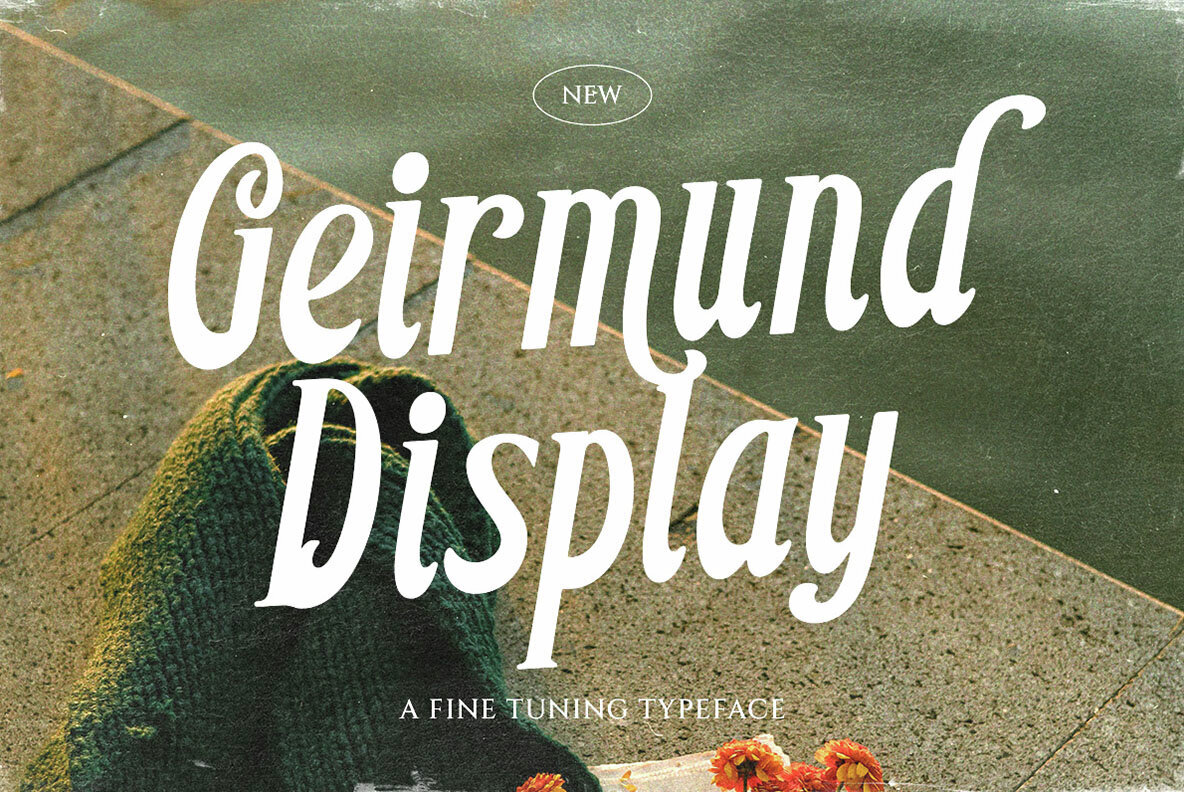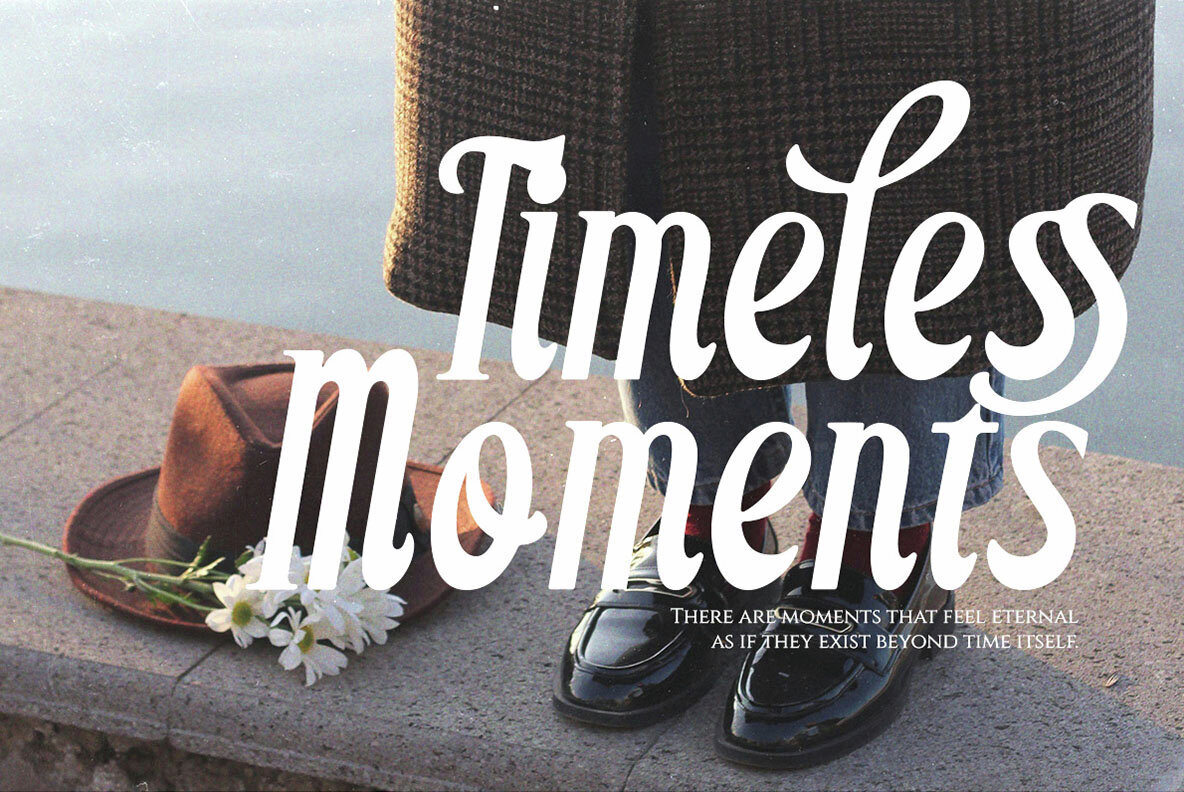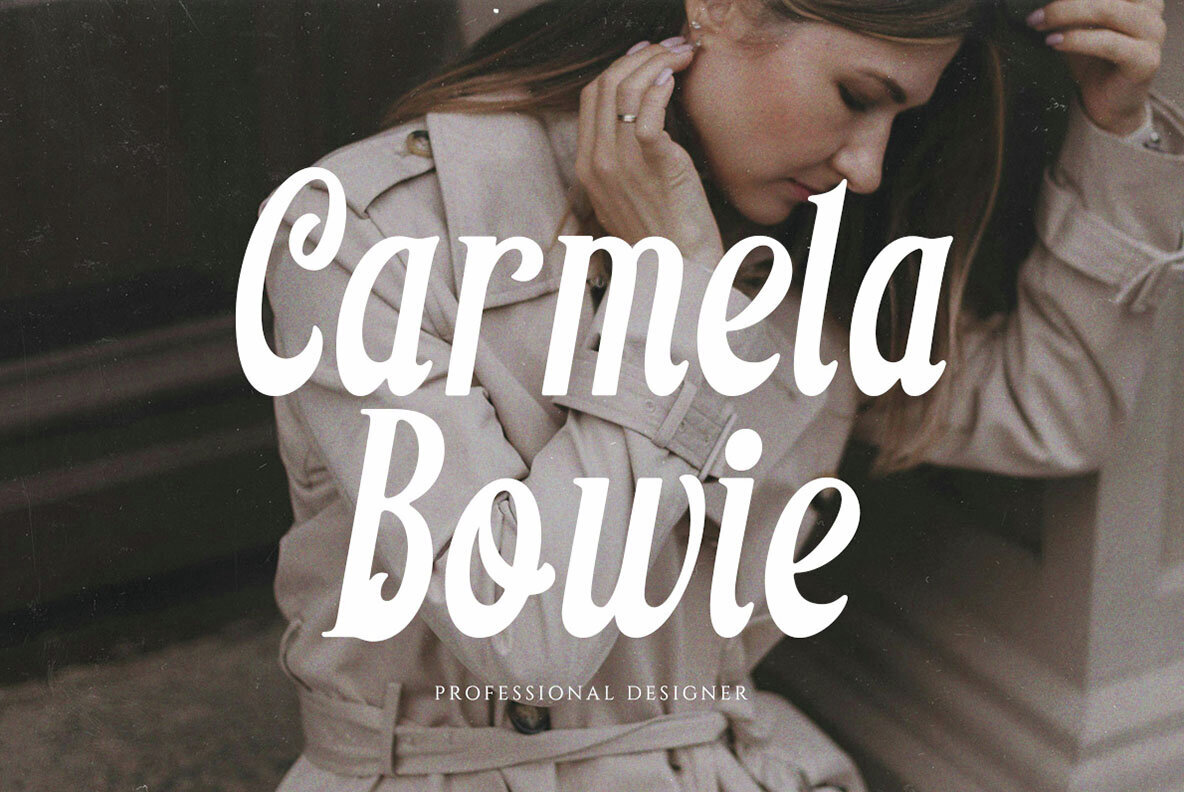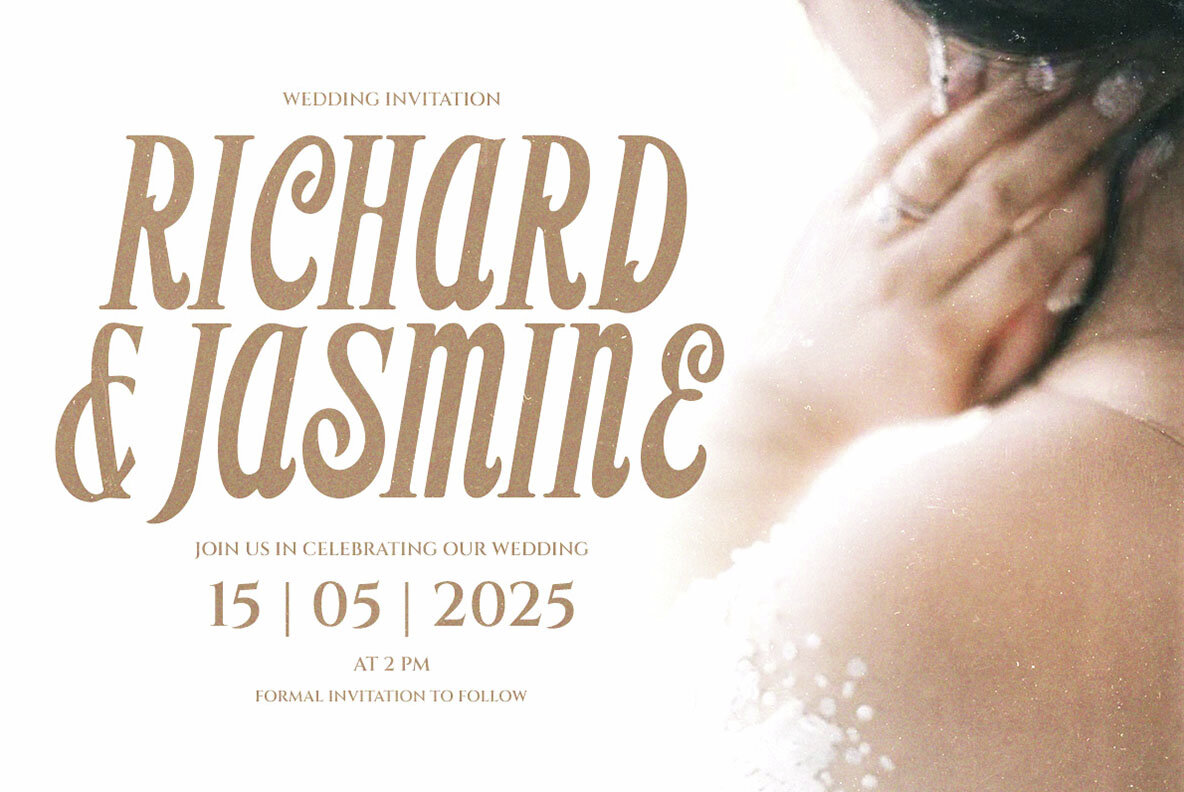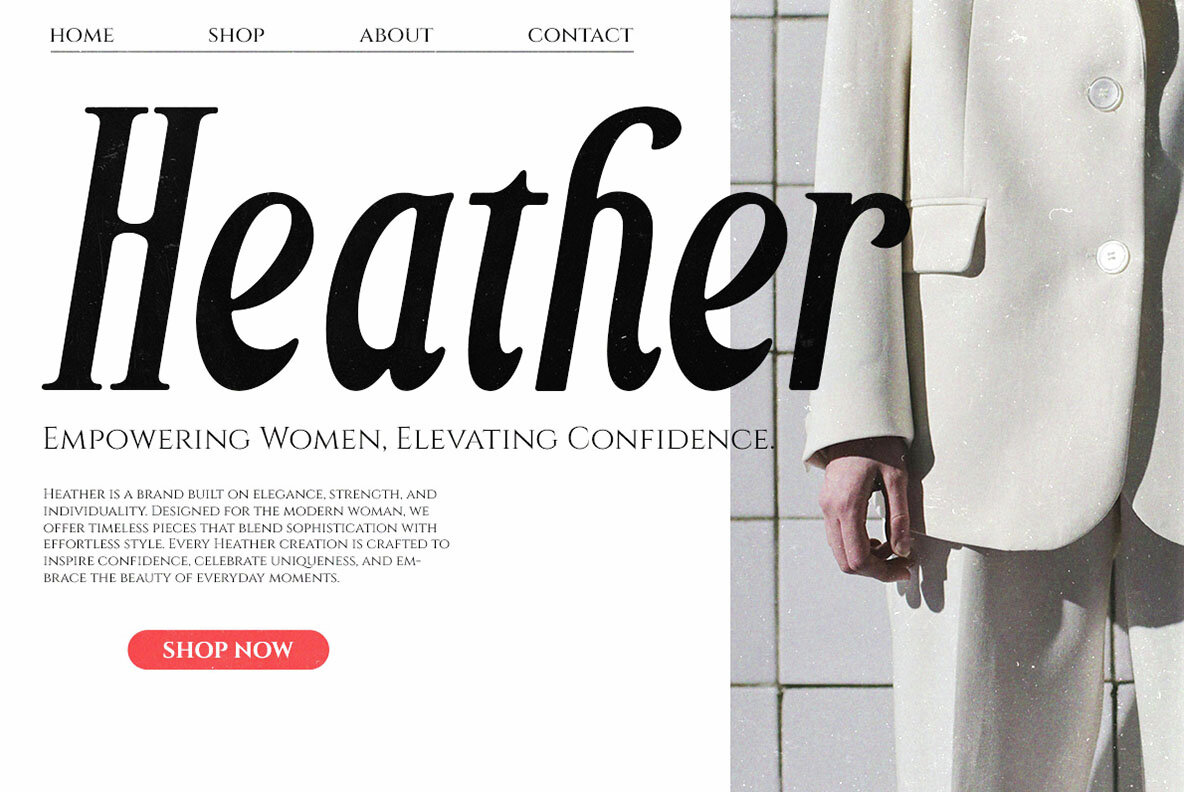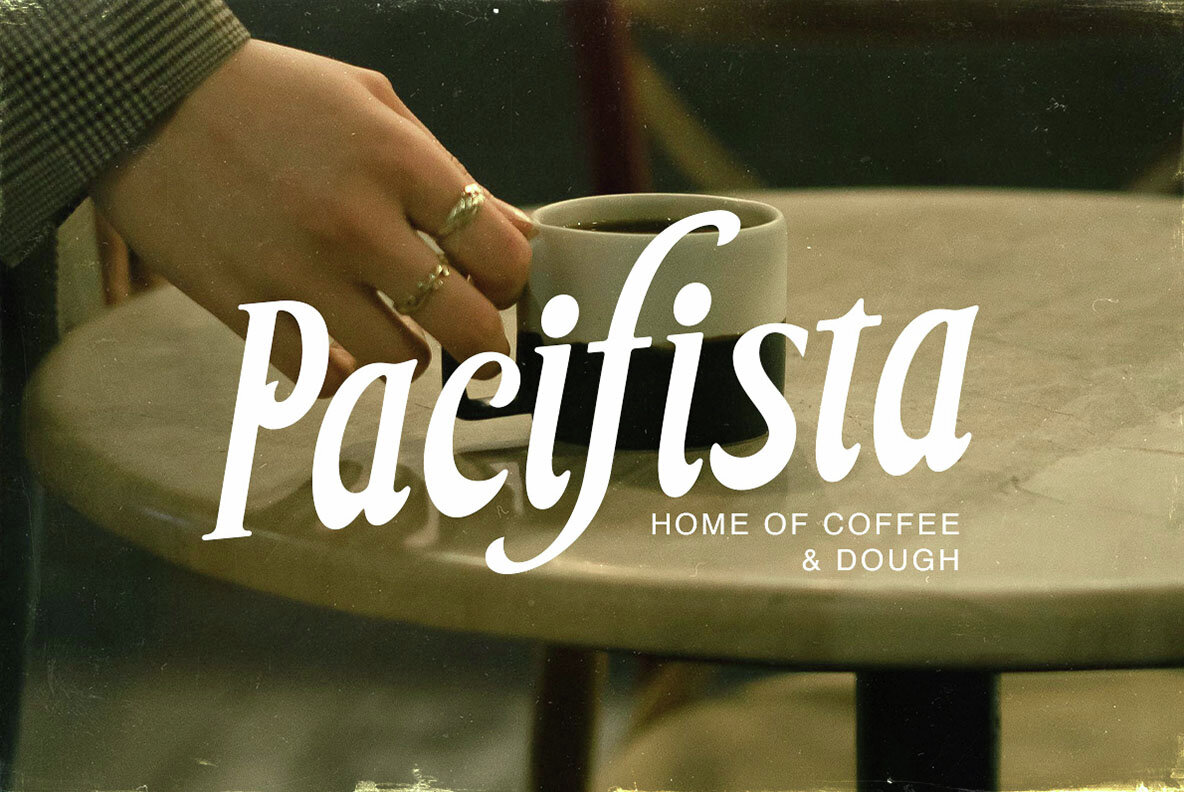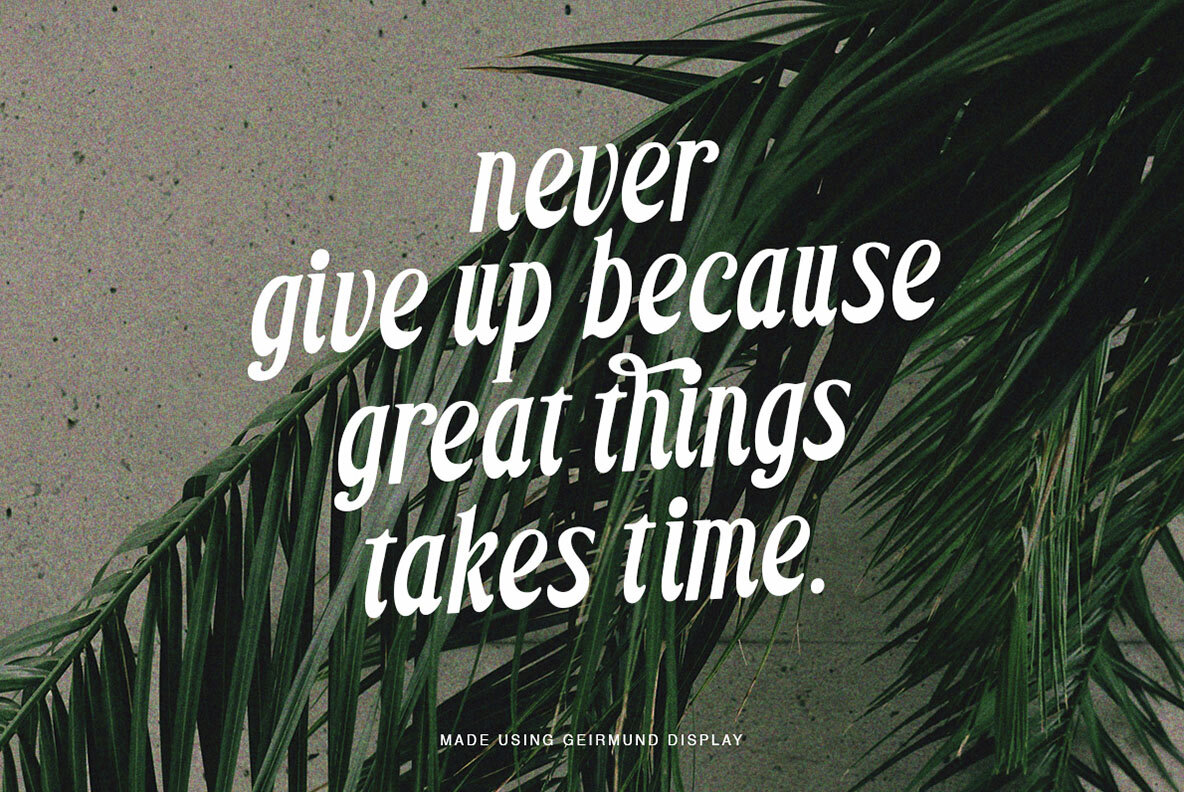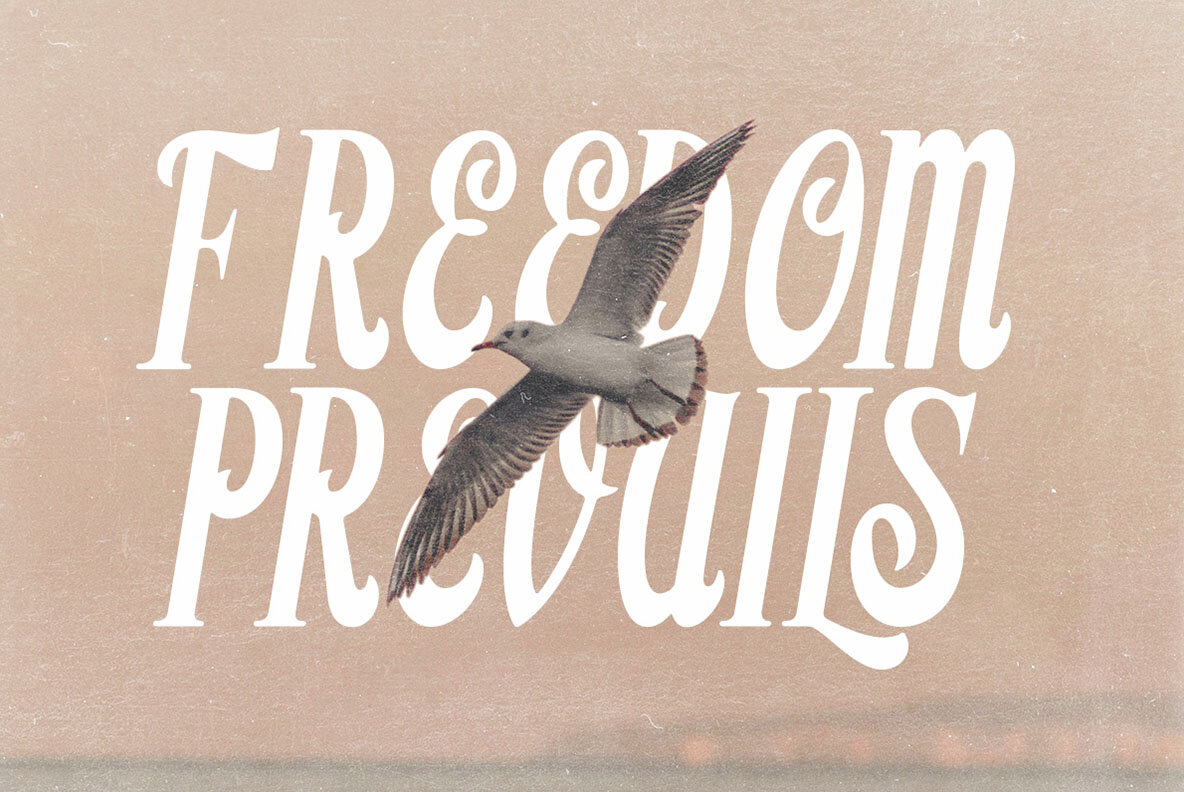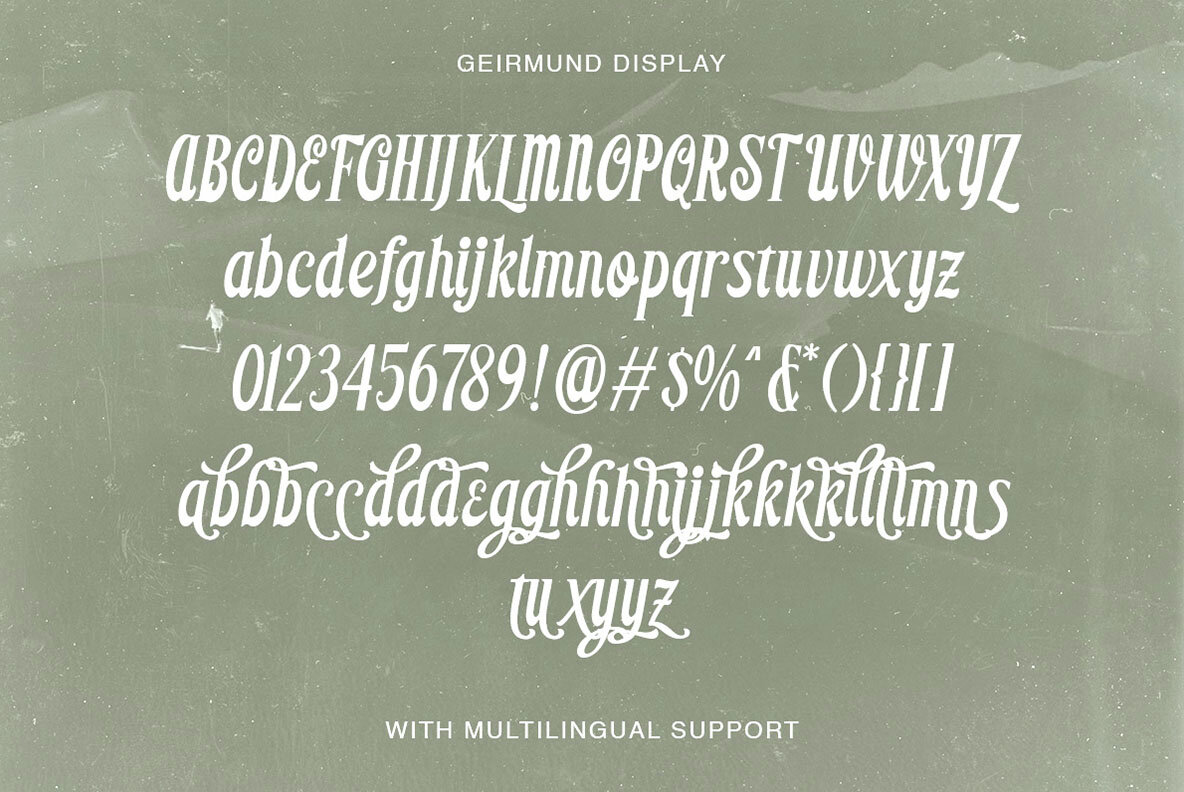
Geirmund Display Font
Geirmund Display Regular
Meet Geirmund Display, a typeface that effortlessly combines elegance with vintage allure. Its design is characterized by smooth curves and dynamic letterforms, making it an excellent choice for branding, editorial design, and logos. This display serif features refined yet expressive strokes, perfect for projects that demand sophistication with a bold touch. Its timeless and striking appeal suits luxury branding, stylish magazines, and captivating advertisements. For the best experience, utilize a program that supports OpenType features and Glyphs panels, such as Adobe apps or Corel Draw, to fully explore all Glyph variations.Geirmund Display Typeface